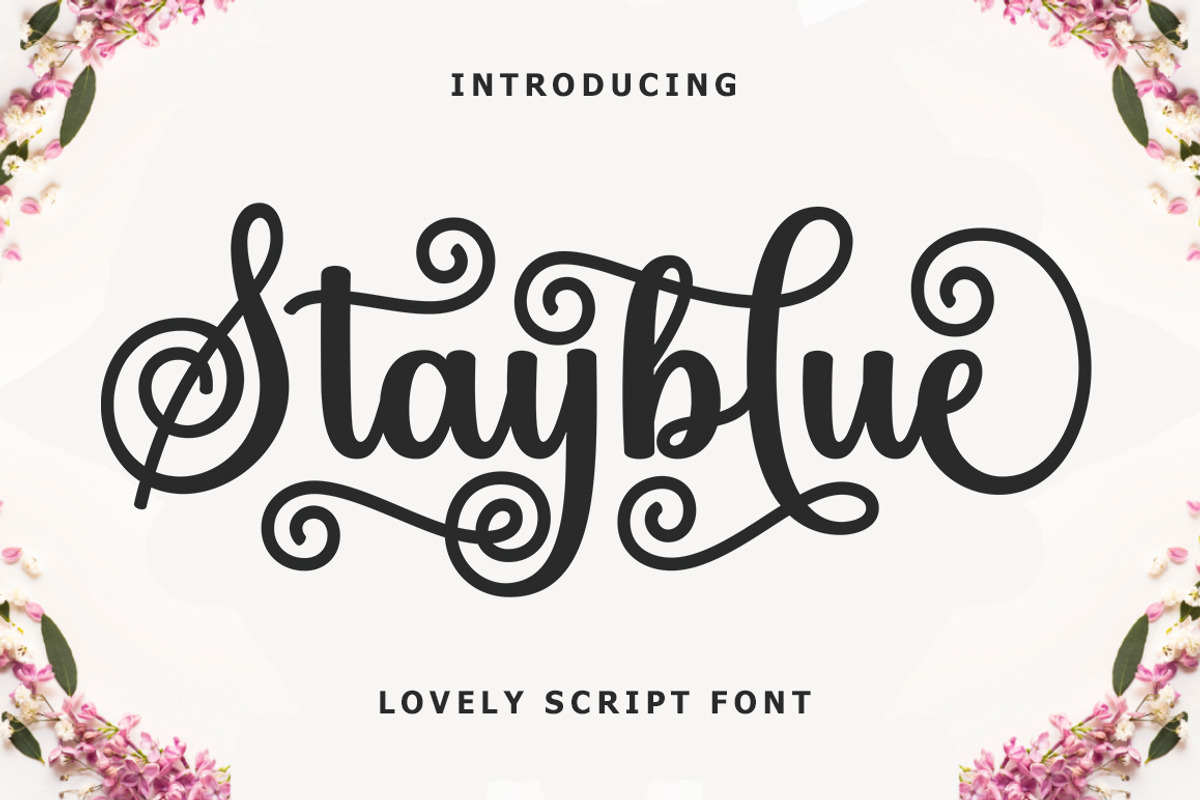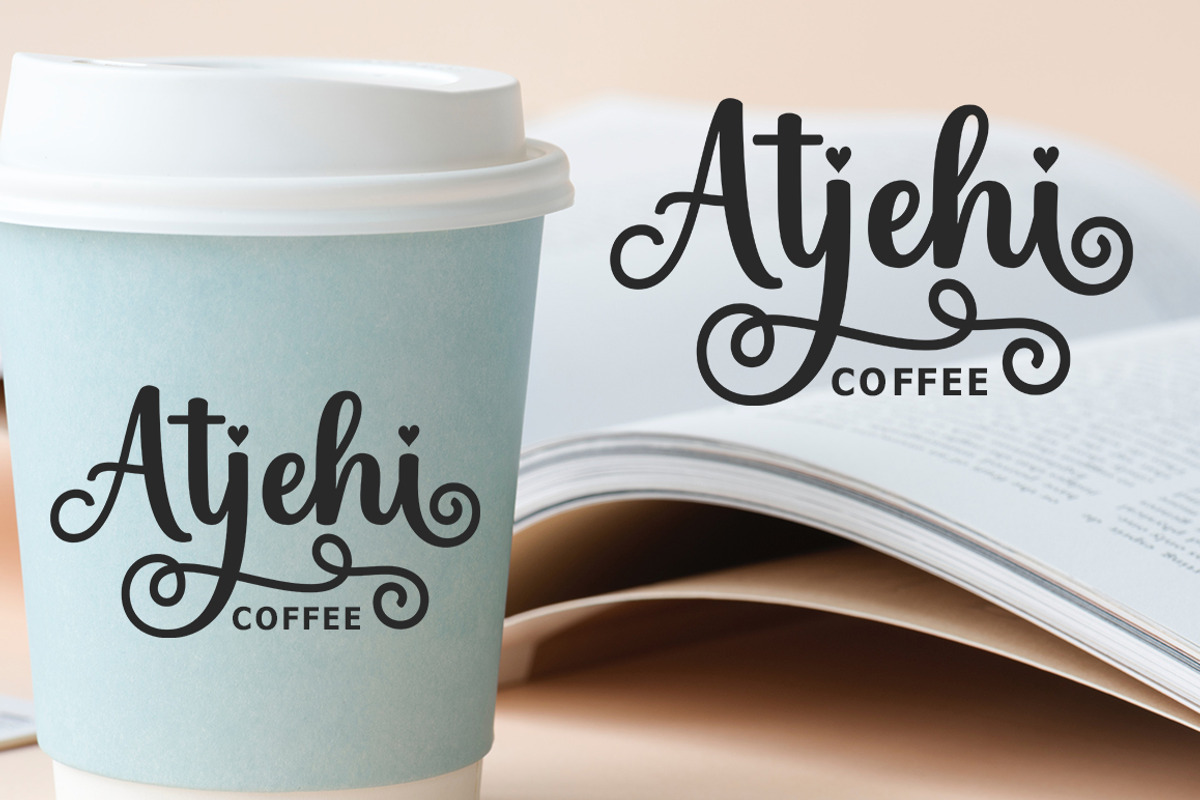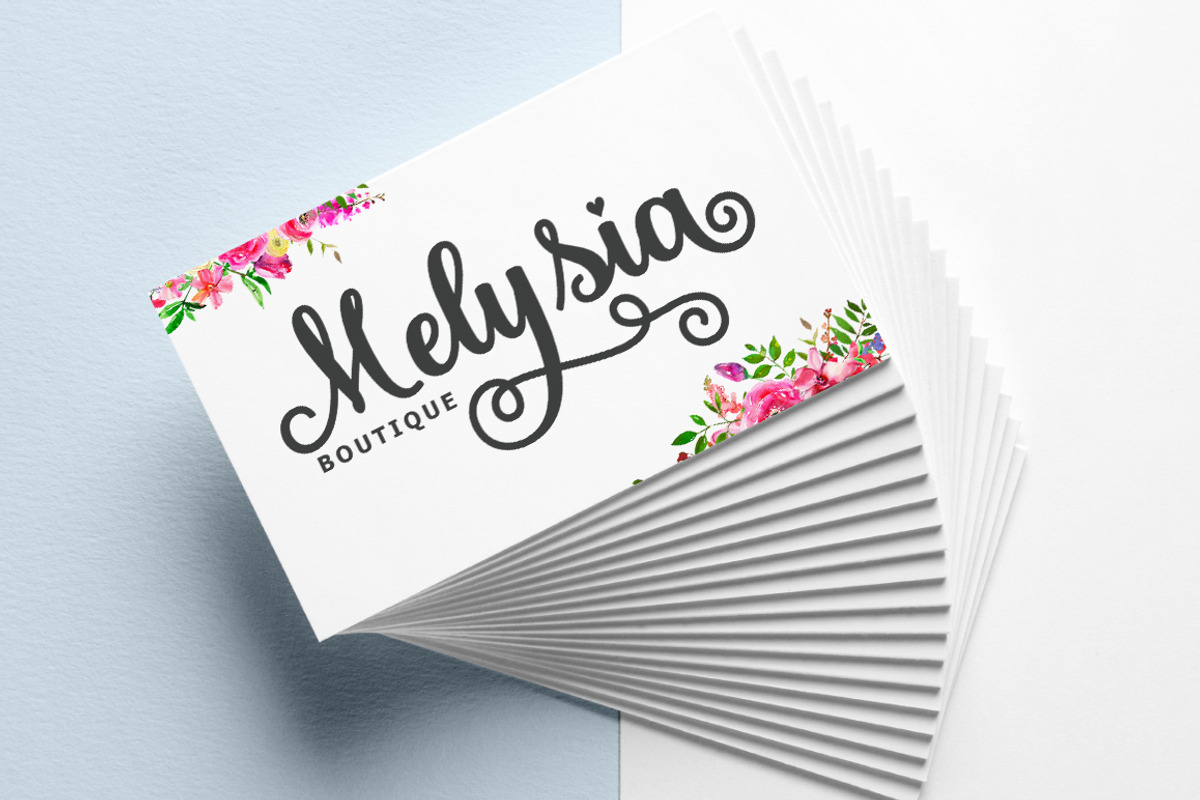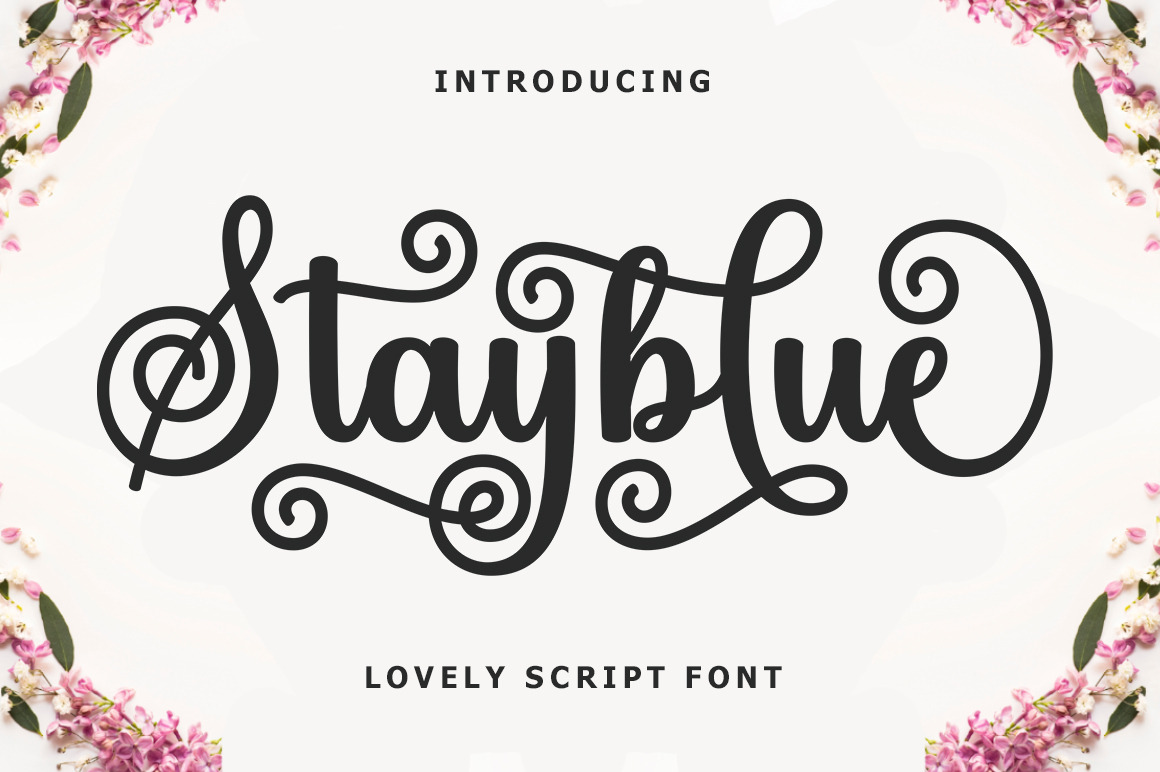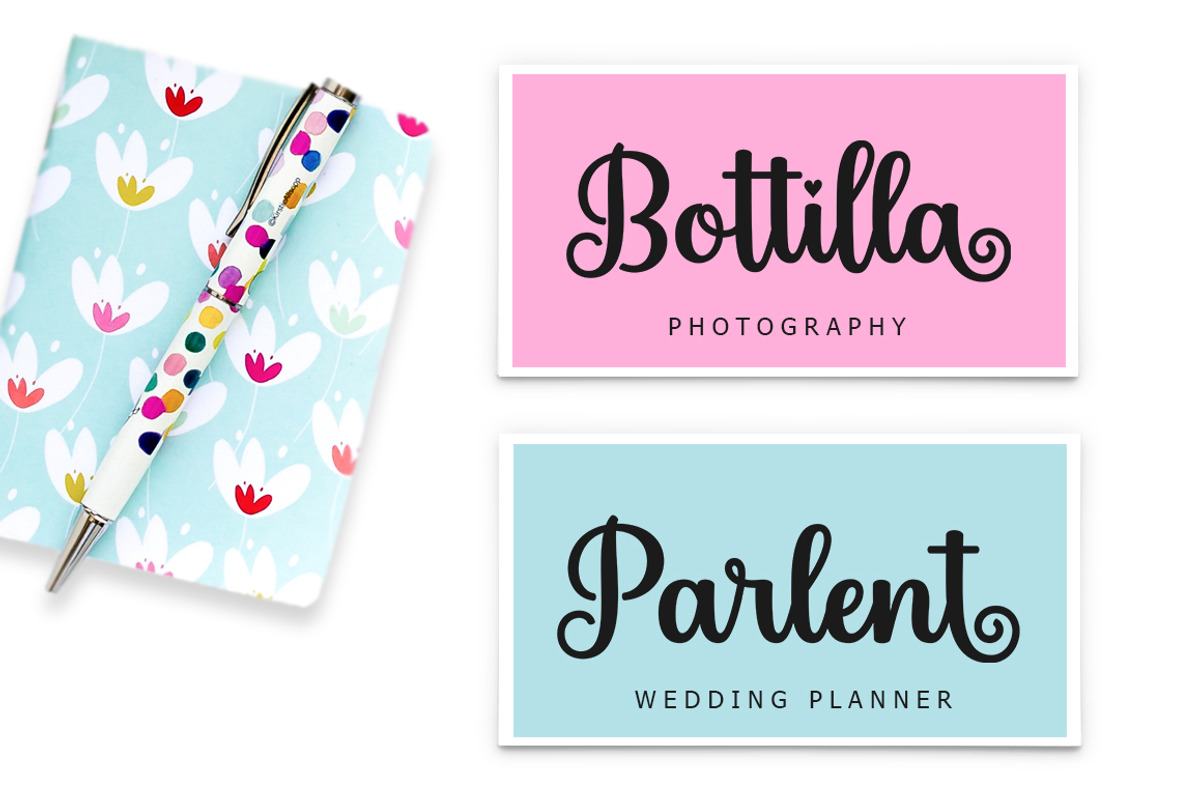
Stayblue | Script Font
Stayblue Script is lovely and sweet calligraphy typeface with characters that dance along the baseline. It has a casual and yet elegant touch. It can be used for various purposes such as logos, wedding invitations, headings, t-shirts, letterhead, signage, lables, news, posters, badges etc.
The fonts include OpenType features with stylistic alternates, ligatures and multiple language support.